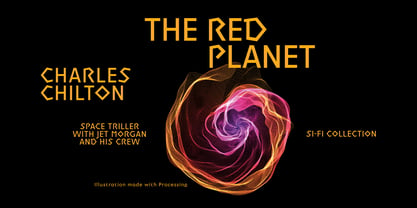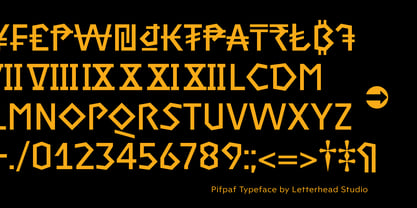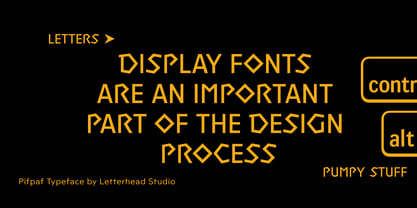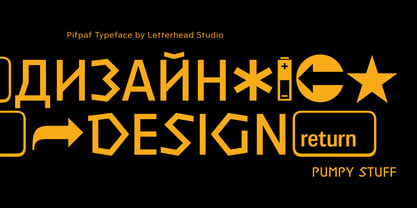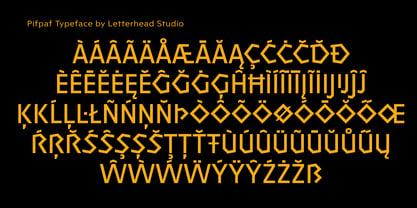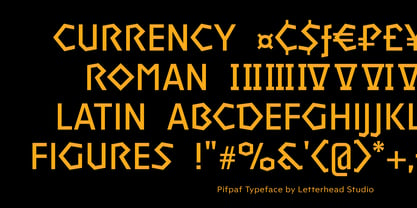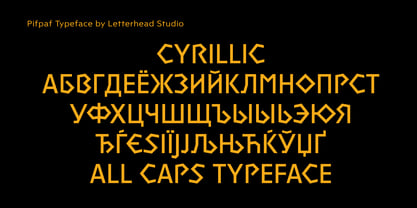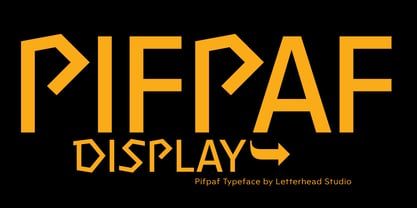
Pifpaf Display
by Letterhead Studio-VG
The Pifpaf Display Font Family was designed by Valery Golyzhenkov and published by Letterhead Studio-VG. Pifpaf Display contains 1 styles. More about this family
Pifpaf font features sharp lines and distinct angular shapes, devoid of rounded edges and soft forms. The glyph set includes only uppercase letters from the extended Latin and Cyrillic alphabets. Additionally, dingbats from the Unicode table are incorporated as supplementary elements. This font offers alternative shapes for select glyphs, ensuring that the original angular designs capture attention and enhance the overall appeal of the typography.